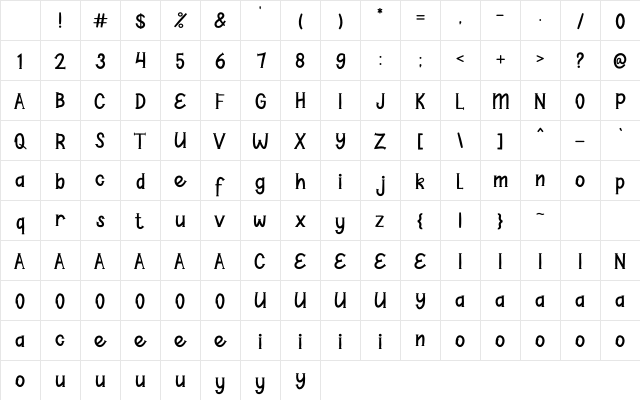
Write Work is a composed and adaptable typeface that performs quietly and consistently across a wide range of design contexts.
Pro Tip: Use Write Work in both headline and body roles to test its range before committing to a single application.